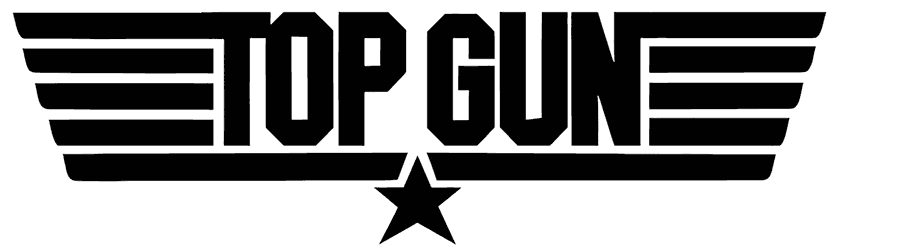
Top Gun Font
Target your viewers‘ attention with Top Gun as a techno font. This army font is originally from the Top Gun movie and doesn’t include lowercase, numerals, or punctuation. Geometric font with a large and clear look is ideal for displaying words in many projects, such as logos, headlines, covers, or any other project you want to be eye-catching.
TOP GUN font: directly from the Best movie by TONY SCOTT, with TOM CRUISE, the original font for all lovers.